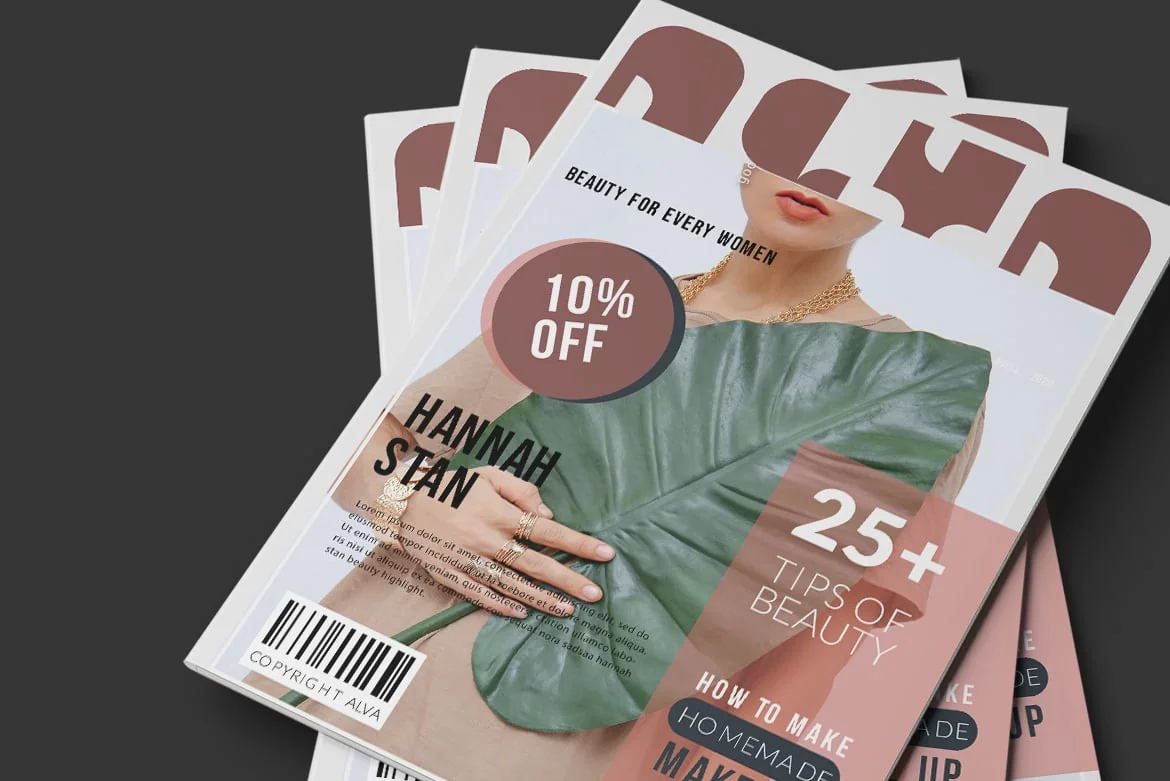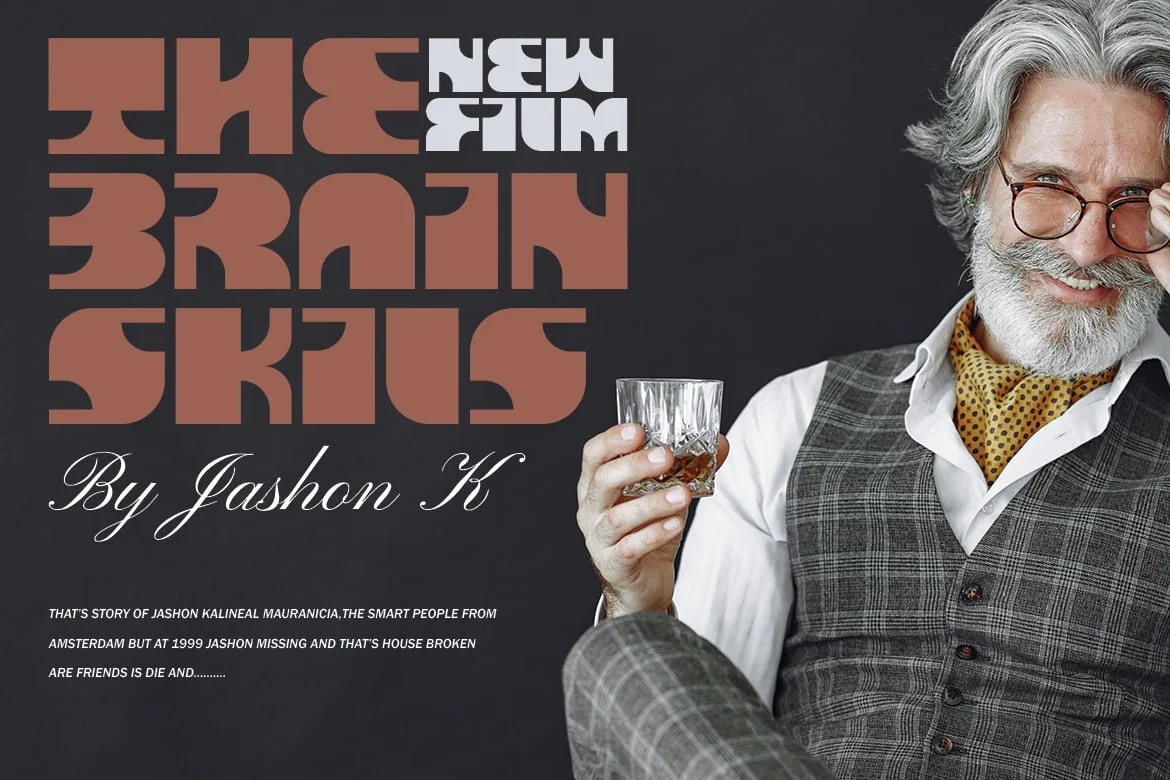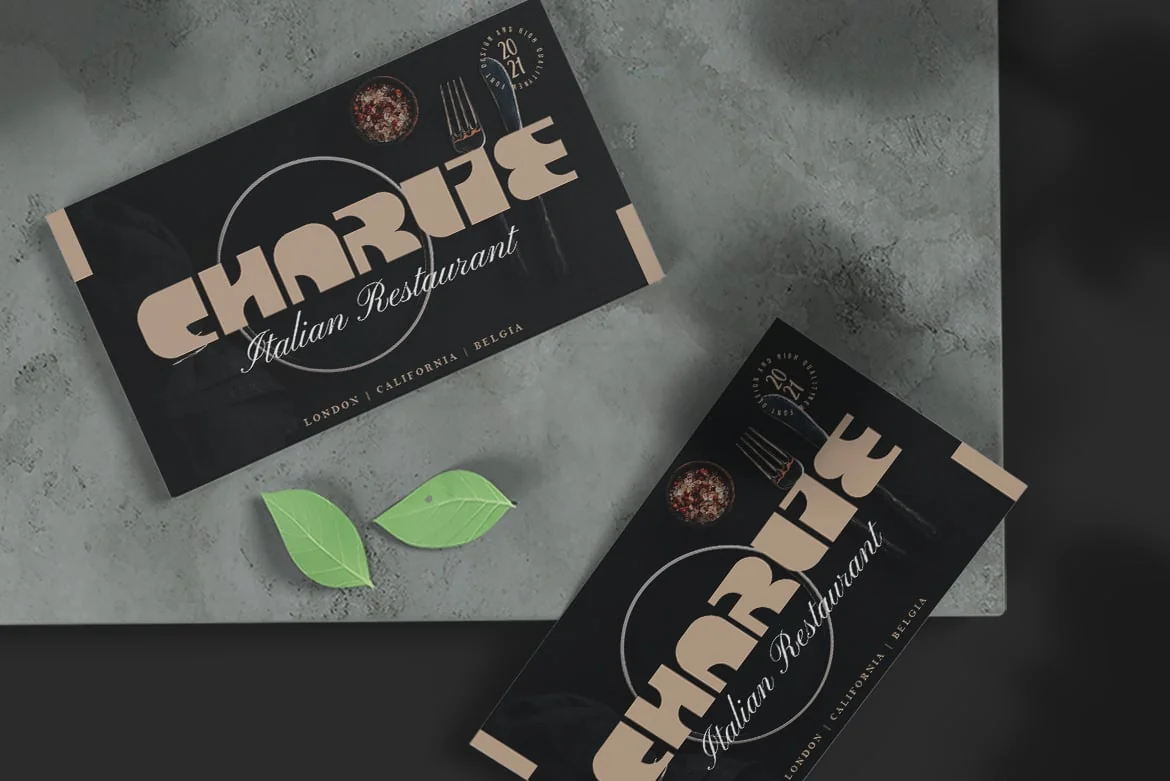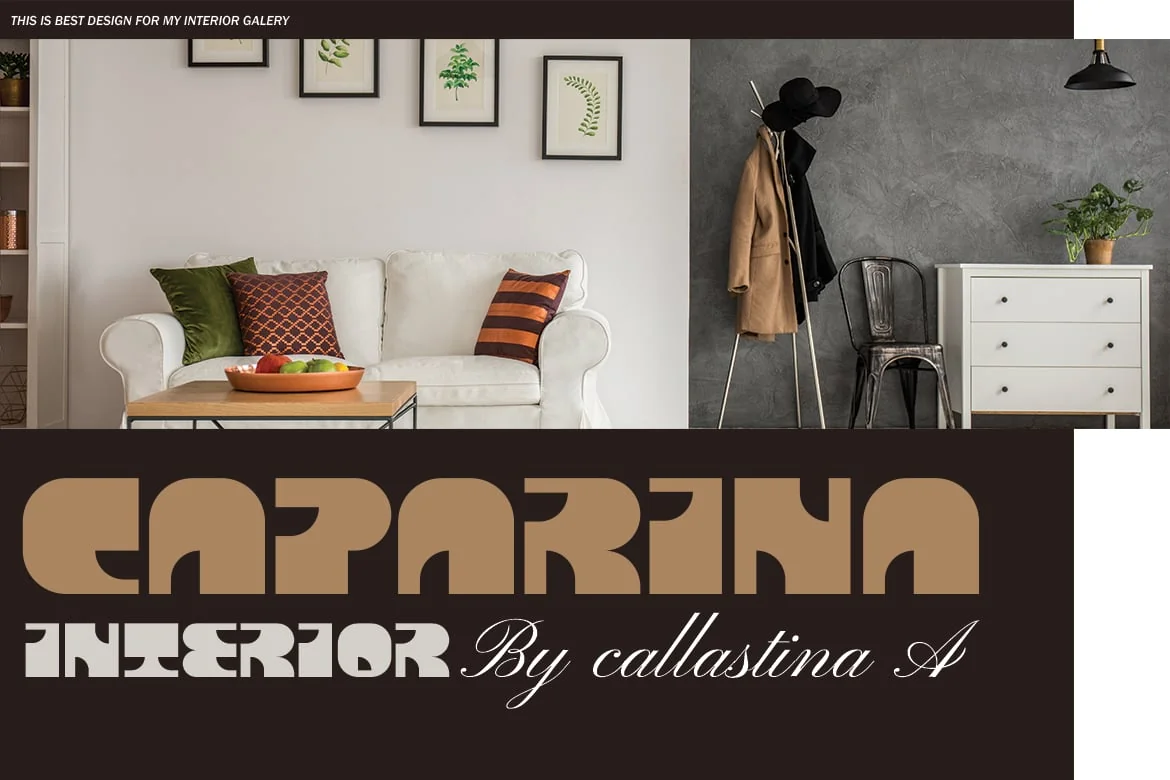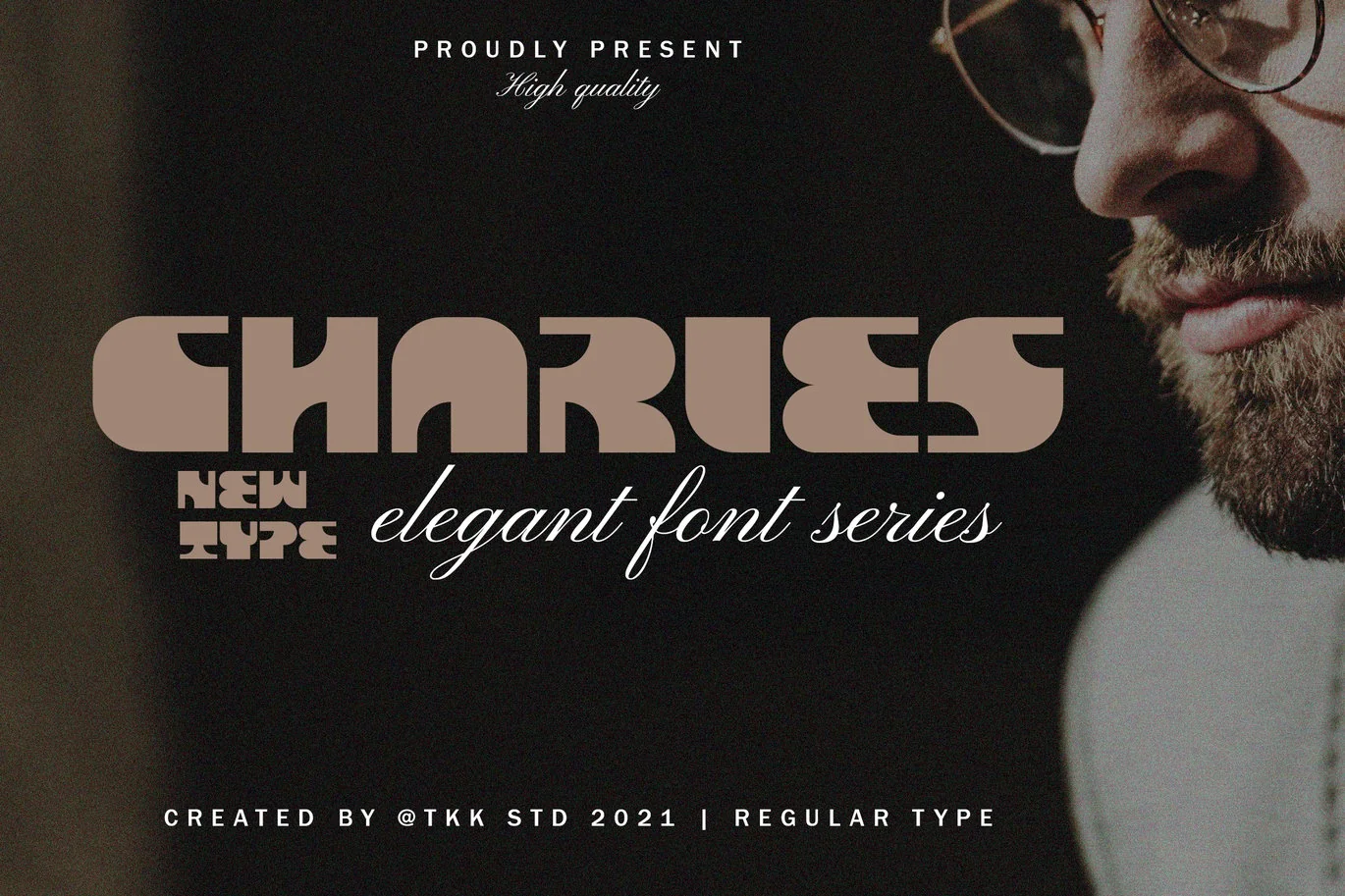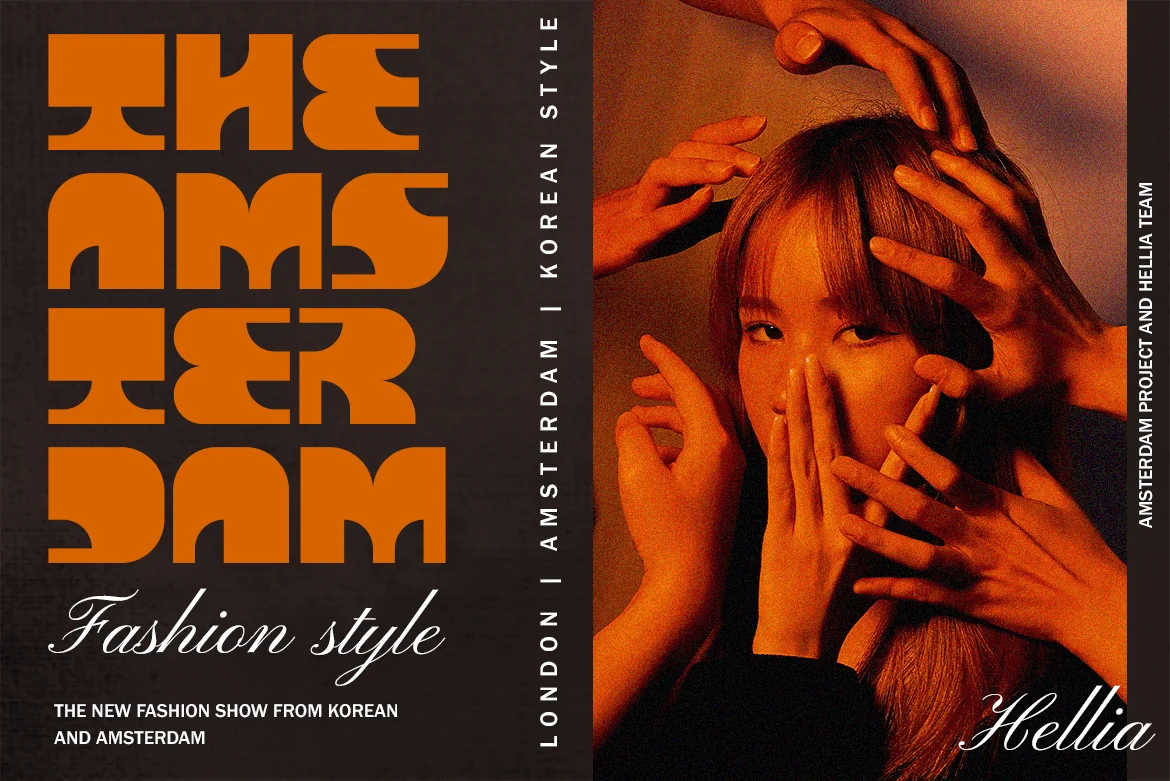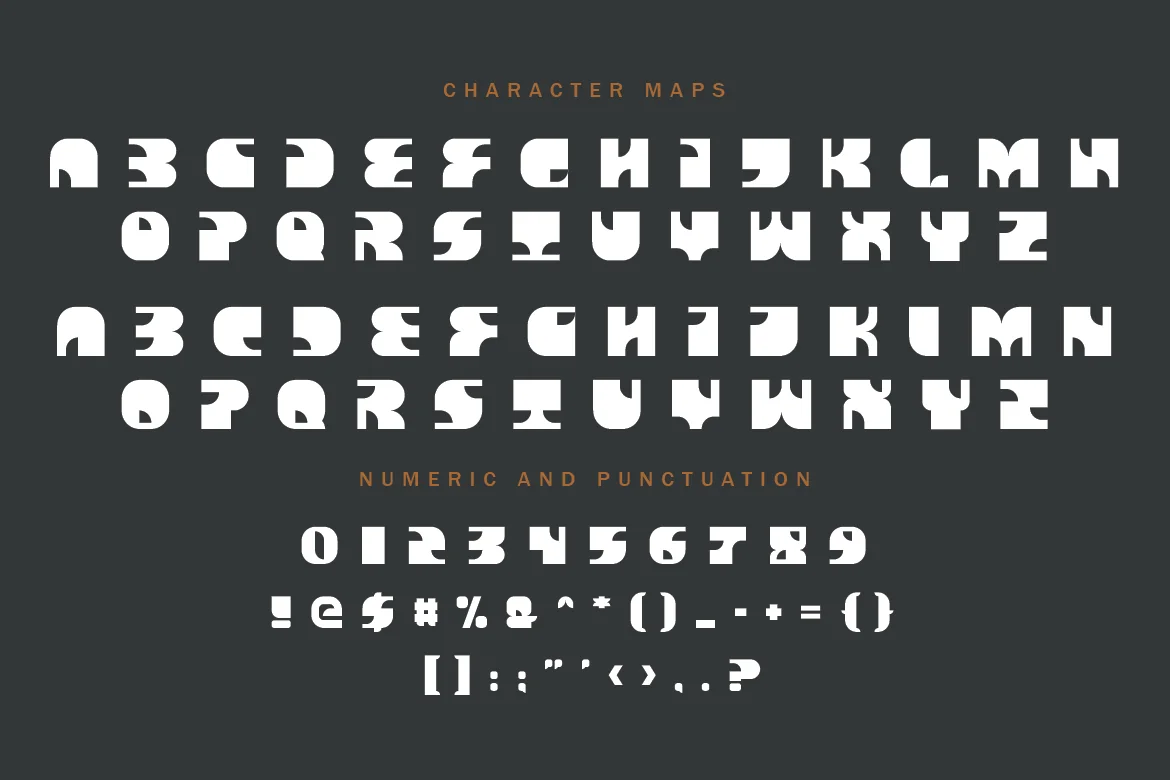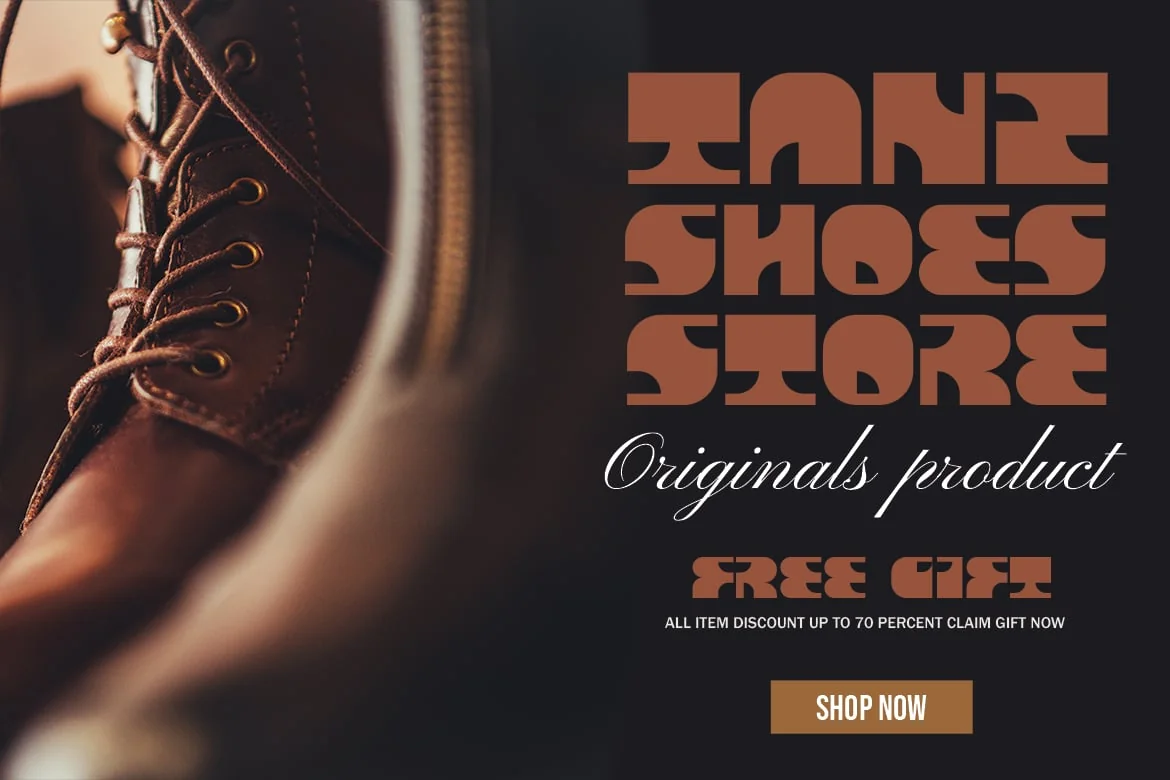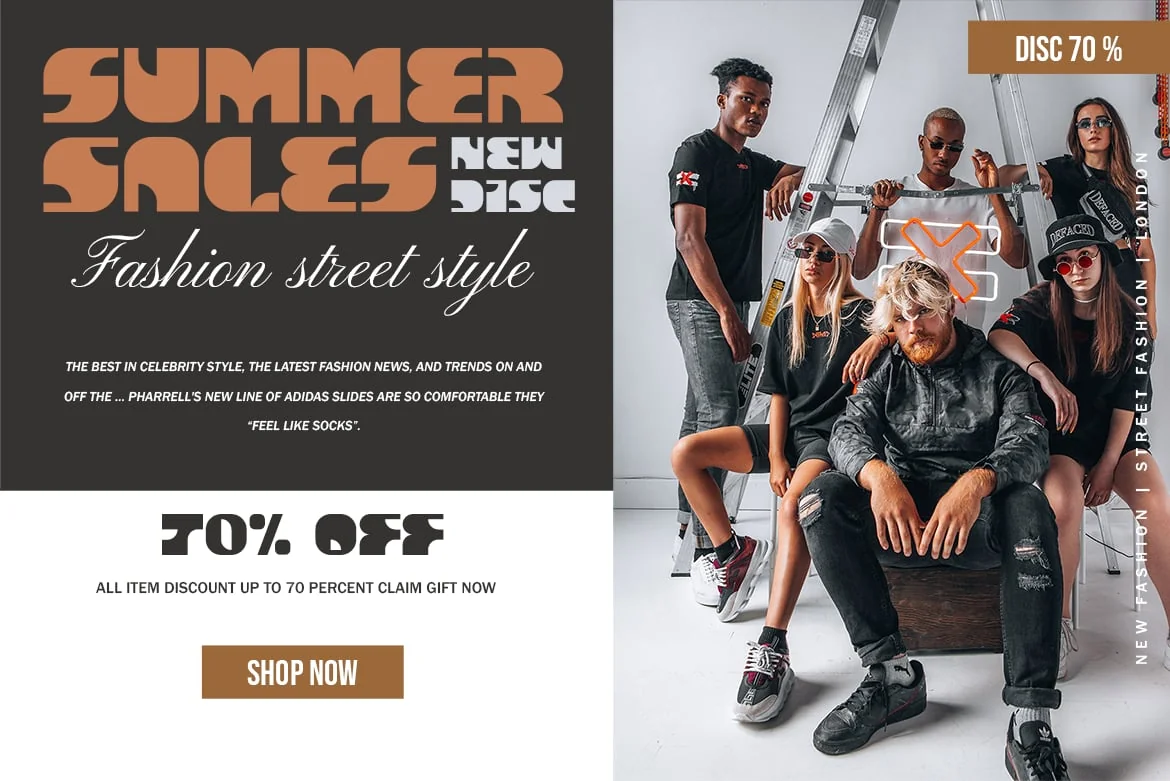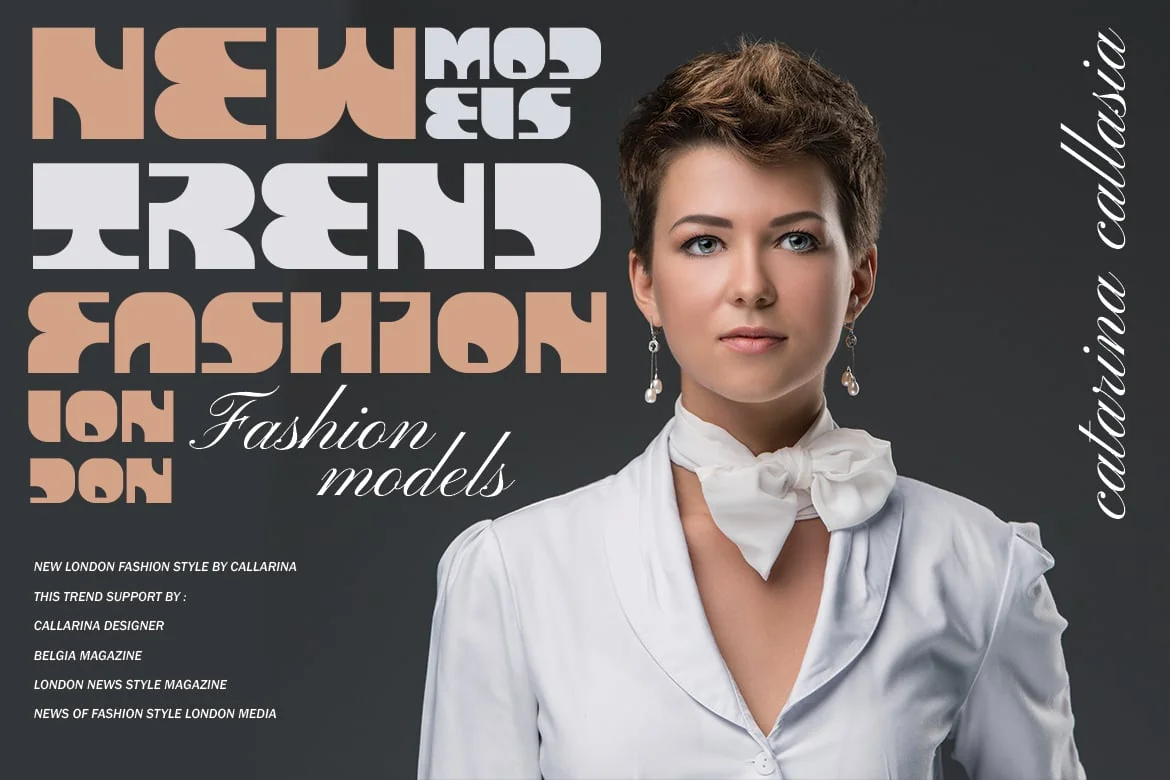
Bold & Elegant Retro Font – Charles
Step into a world of bold sophistication with Charlies, a retro-inspired typeface that merges strong geometric forms with elegant vintage flair. This font exudes power, refinement, and high-end style, making it a perfect choice for branding, editorial design, fashion magazines, and luxury product packaging. Its bold letterforms and stylish alternates give off a timeless Art Deco and mid-century modern feel, making it stand out effortlessly.
Key Features :
- Retro Meets Modern – A perfect balance of vintage inspiration and contemporary design.
- Distinctive Letterforms – Unique, geometric characters with stylish curves for a striking visual identity.
- Perfect for Luxury & Editorial Designs – Ideal for fashion brands, upscale advertising, magazine layouts, and high-end packaging.
- Strong and Versatile – Works beautifully for logos, bold typography, posters, and sophisticated marketing materials.
- Professional & Stylish – Designed for premium aesthetics that demand attention.
Charlies is tailored for designers, brands, and creatives looking for a font that embodies luxury, confidence, and timeless elegance. Whether you’re working on modern branding, stylish social media graphics, or high-end product designs, this font will bring a distinguished and polished look to any project.
Elevate your design game with Charlies – where bold meets refined elegance!